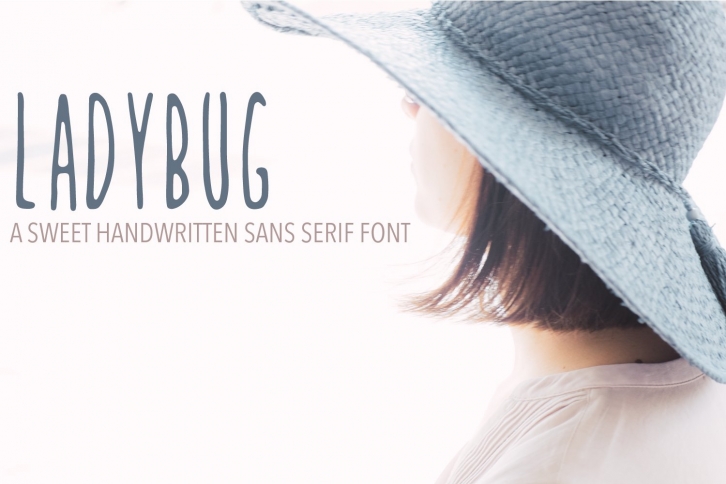
Ladybug is a sweet, sans serif handwritten font. Its wobbly condensed style offers handwritten appeal that looks great on greeting cards, advertisements, wall art, packaging, and many more creative projects.
Includes uppercase and lowercase letters, numbers, punctuation, and symbols. (See image #2)